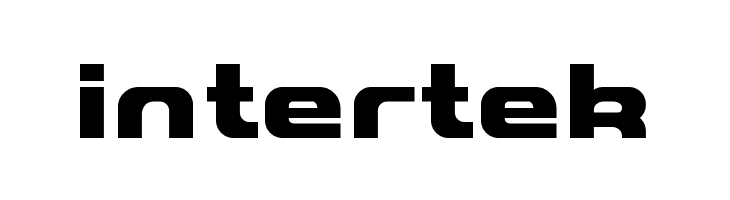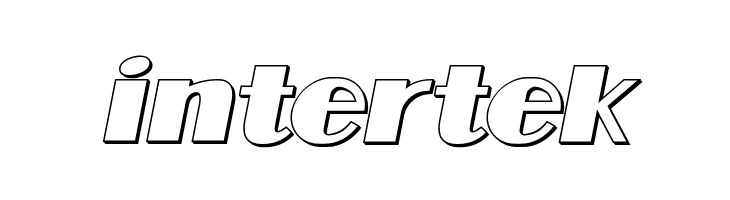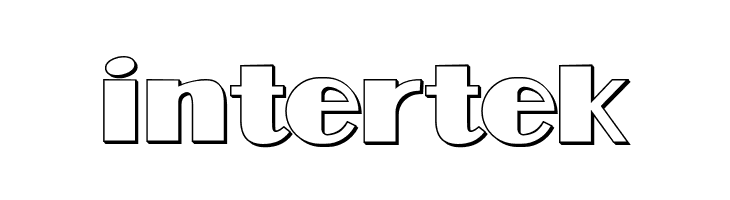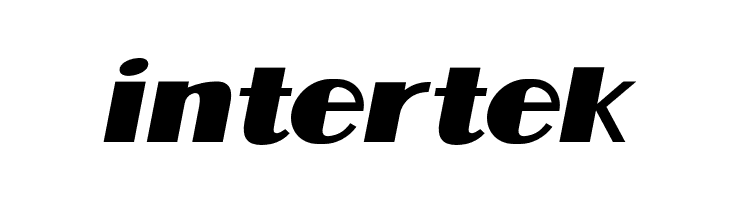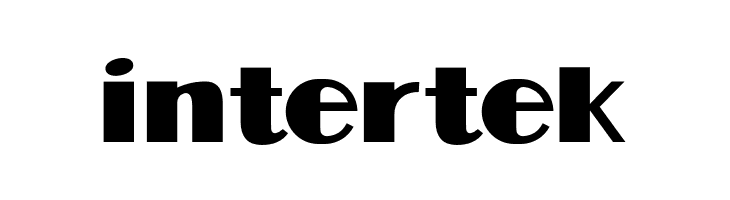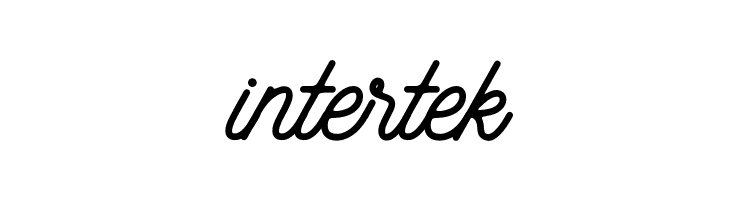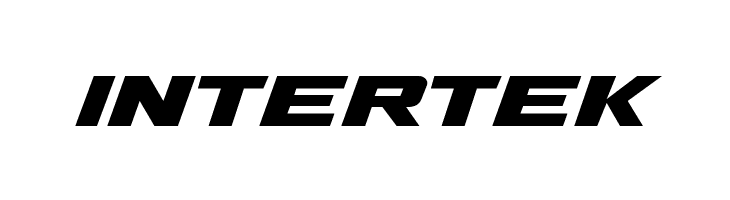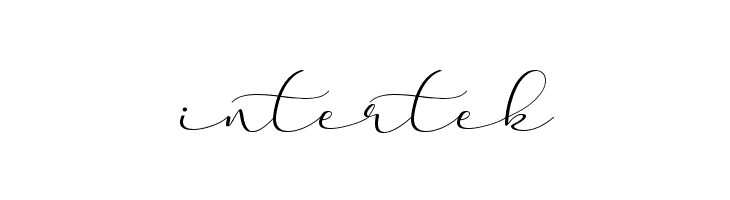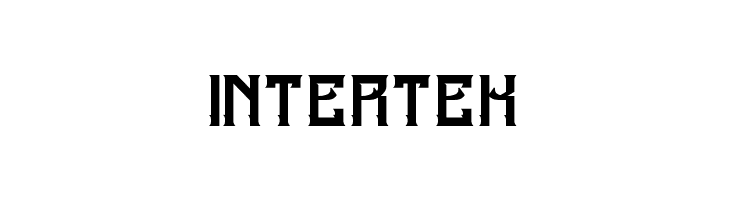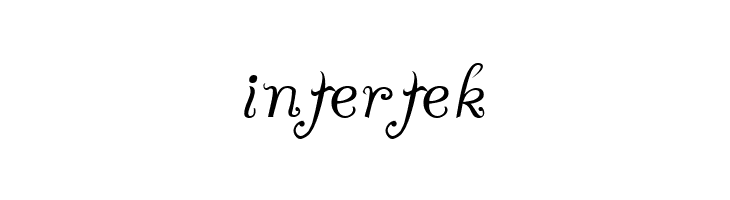
A playful, hand-drawn font with irregular, whimsical letterforms.
An elegant, decorative script font with intricate swirls and embellishments.
A bold, three-dimensional block font with a modern, impactful style.
A dynamic, handwritten font with a casual and fluid style.
A bold, modern font with a futuristic and geometric design.
A futuristic, geometric font with clean lines and rounded edges.
A bold, futuristic font with geometric, rounded letterforms.
A modern, bold, and italic font with a sleek and dynamic design.
A sleek, modern italic font with a futuristic design.
A sleek, modern font with geometric lines and a minimalist design.
A sleek, futuristic font with rounded edges and a slight italic slant.
A modern, thin, geometric font with a minimalist style.
A thin, italicized font with a futuristic and geometric style.
A modern, geometric font with clean lines and balanced spacing.
A modern, geometric sans-serif font with a clean and balanced appearance.
A bold, grid-patterned font with a pixelated, digital style.
A bold, futuristic font with rounded, geometric letterforms.
A whimsical, script-like font with a hand-drawn, artistic style.
A bold, geometric font with sharp angles and a modern aesthetic.
A bold, italicized typeface with a modern, speedy aesthetic.
A vintage, monospaced typewriter-style font with a rough, mechanical feel.
A bold, italic, 3D font with outlined characters for a dynamic look.
A bold, 3D outlined font with a modern and impactful style.
A bold, modern italic font with smooth, fluid strokes and slightly condensed letterforms.
A bold, striking font with thick, uniform strokes and a dynamic feel.
An elegant script font with flowing, decorative swashes and loops.